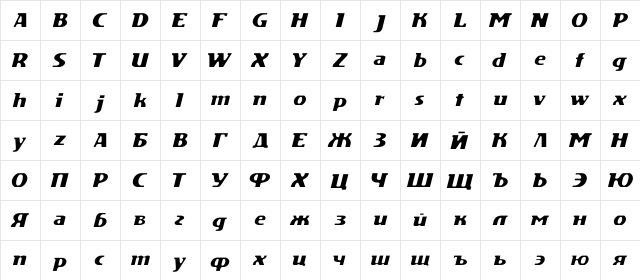
DS Motion Demo Italic
Design Context for DS Motion Demo Typeface
DS Motion Demo is a composed and adaptable typeface that performs quietly and consistently across a wide range of design contexts. Its italic angle brings a sense of urgency and motion to the letterforms.
Pro Tip: Use DS Motion Demo for emphasis, pull quotes, and subheadings where its slanted energy can add rhythm to the layout.